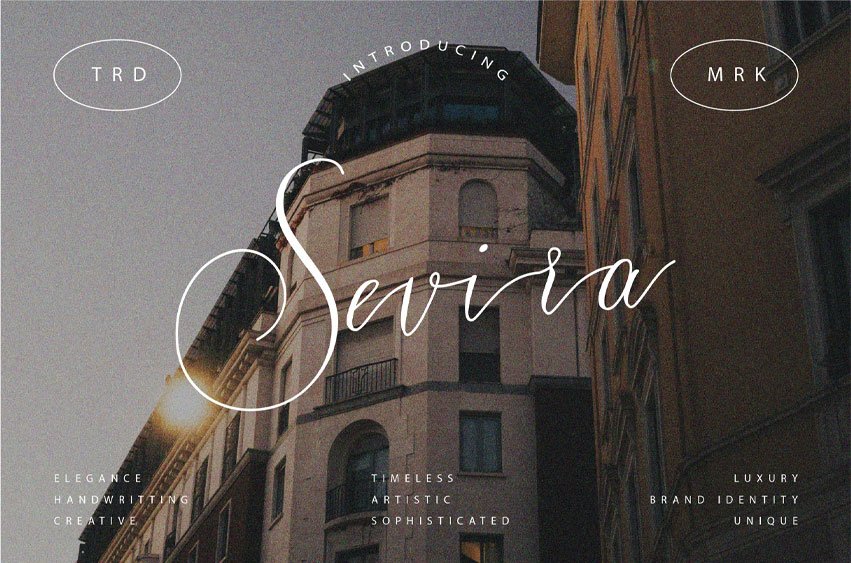
Sevira Handwritten Font
Sevira Handwritten Font is a graceful and modern script font that combines fluid, handwritten elegance with contemporary sophistication.
Its flowing curves and delicate flourishes give each letter a unique and personal touch, making it ideal for projects that require both creativity and refinement.